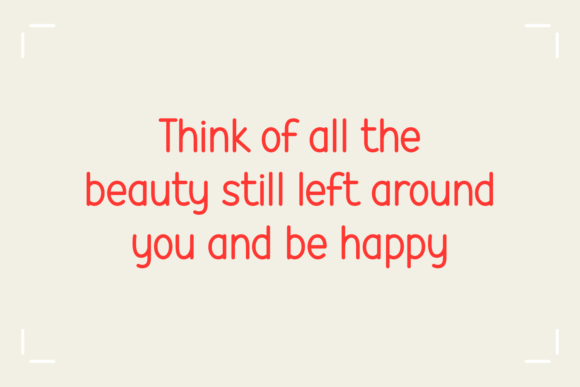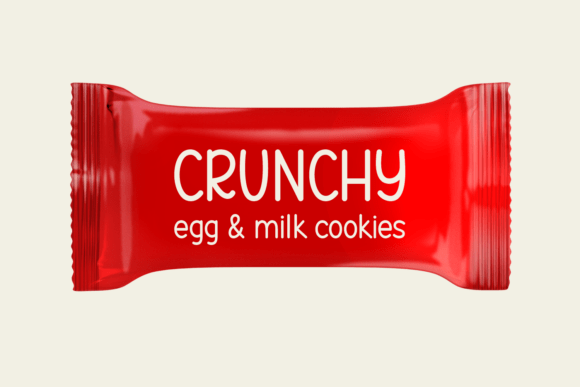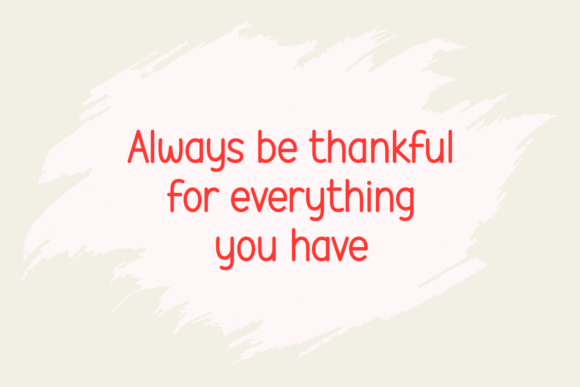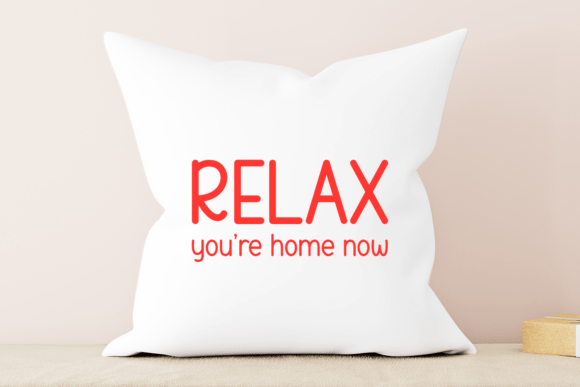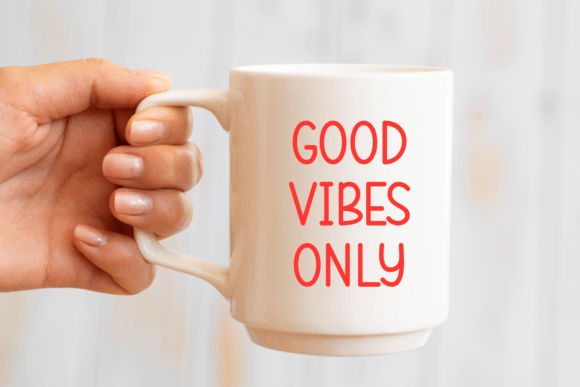
Easter Planner Font: Add a Touch of Personality to Your Designs
Are you tired of using the same old fonts for your designs? Look no further! Introducing Easter Planner, a fresh handwritten font designed to embody vibrancy and variety. This exciting new font is perfect for designers and crafters looking to add a touch of personality to their work.
What is Easter Planner Font?
Easter Planner is a modern handwritten font that exudes casual energy and playfulness. Its unique and varied letterforms make it an ideal choice for a wide range of design projects, from social media posts to product designs, T-shirt graphics, and even mugs. The font’s friendly and approachable feel makes it perfect for school projects, providing a modern yet accessible styling option.
Key Features of Easter Planner Font
- Vibrant and Varied: Easter Planner font boasts a wide range of letterforms, making it perfect for creating unique and eye-catching designs.
- Casual Energy: The font’s playful and casual vibe makes it ideal for designs that require a friendly and approachable feel.
- Versatile: Easter Planner font can be used for a variety of design projects, including social media posts, product designs, T-shirt graphics, and more.
- Modern yet Accessible: The font’s modern styling makes it perfect for school projects and designs that require a fresh and contemporary look.
Uses of Easter Planner Font
Easter Planner font is incredibly versatile and can be used for a wide range of design projects, including:
- Social Media Posts: Add a touch of personality to your social media posts with Easter Planner font. Its casual energy makes it perfect for creating engaging and eye-catching posts.
- Product Designs: Use Easter Planner font to create unique and eye-catching product designs, from t-shirts to mugs and more.
- T-Shirt Graphics: The font’s playful and casual vibe makes it perfect for creating fun and stylish t-shirt graphics.
- School Projects: Easter Planner font is an excellent choice for school projects, providing a modern yet accessible styling option.
Why Choose Easter Planner Font?
- Unique and Eye-Catching: Easter Planner font is designed to stand out from the crowd. Its unique and varied letterforms make it perfect for creating eye-catching designs.
- Easy to Read: Despite its playful and casual vibe, Easter Planner font is incredibly easy to read, making it perfect for designs that require a clear and concise message.
- Versatile: Easter Planner font can be used for a wide range of design projects, making it an excellent addition to any designer’s toolkit.
In conclusion, Easter Planner font is an exciting new font that is sure to add a touch of personality to your designs. Its casual energy, vibrant and varied letterforms, and versatility make it an excellent choice for designers and crafters looking to create unique and eye-catching designs. Whether you’re working on a social media post, product design, T-shirt graphic, or school project, Easter Planner font is the perfect choice. So why wait? Dive into this font feast today and see how Easter Planner can elevate your designs to the next level!